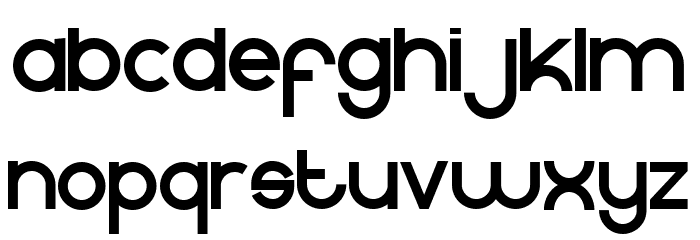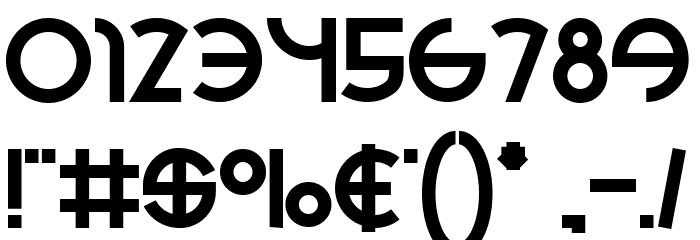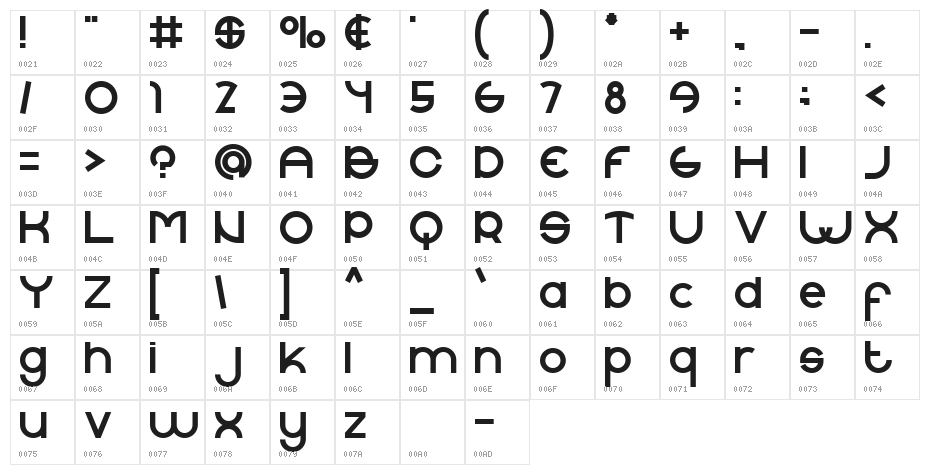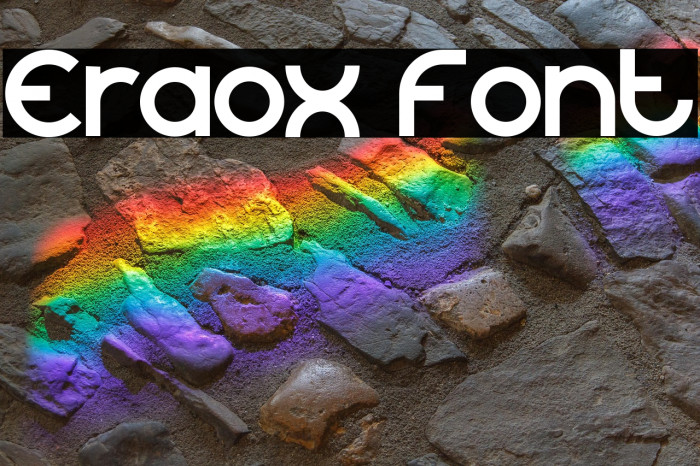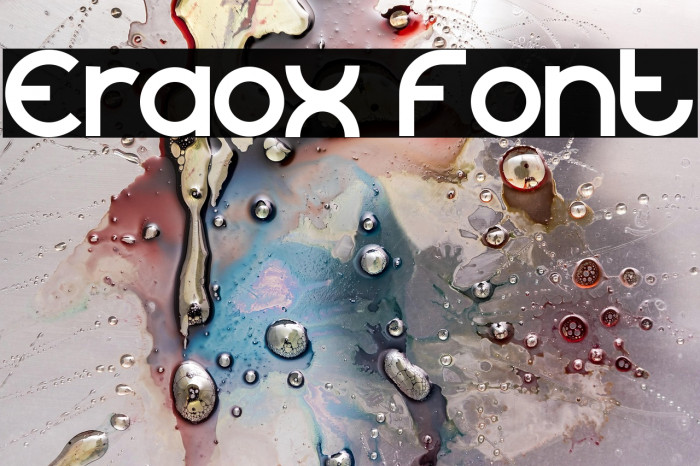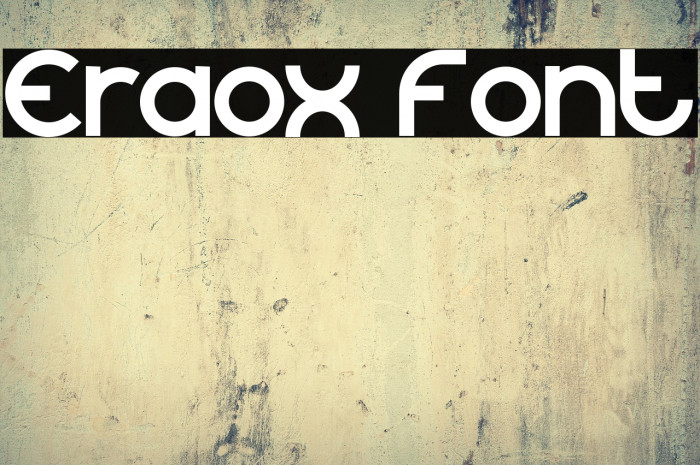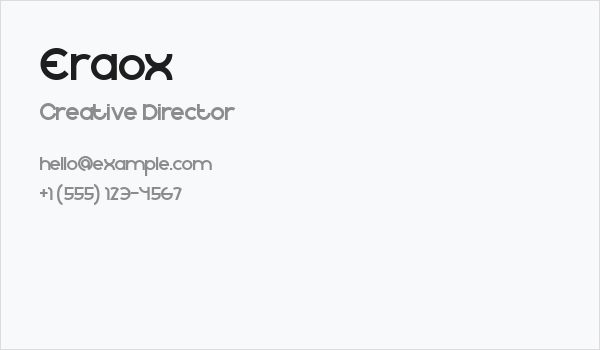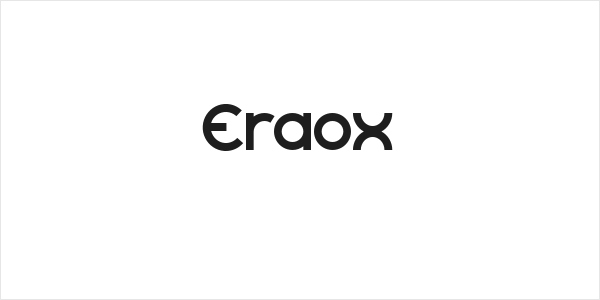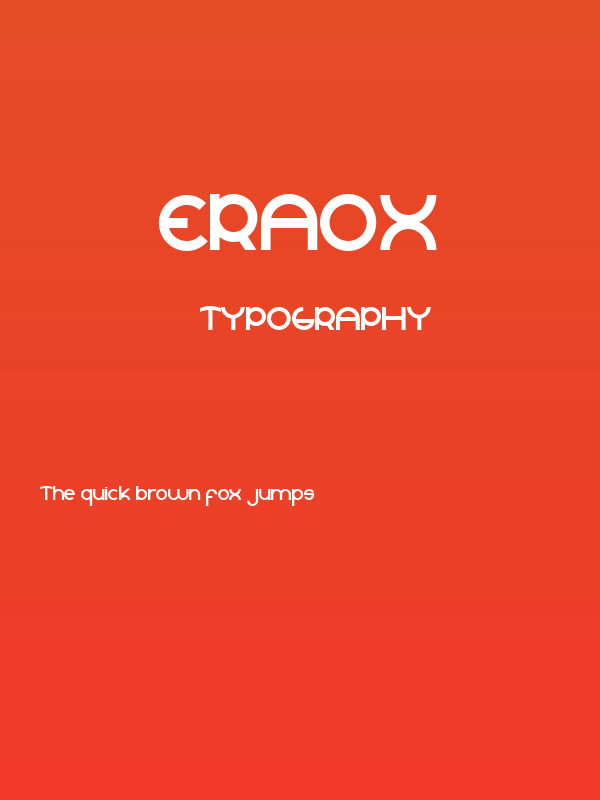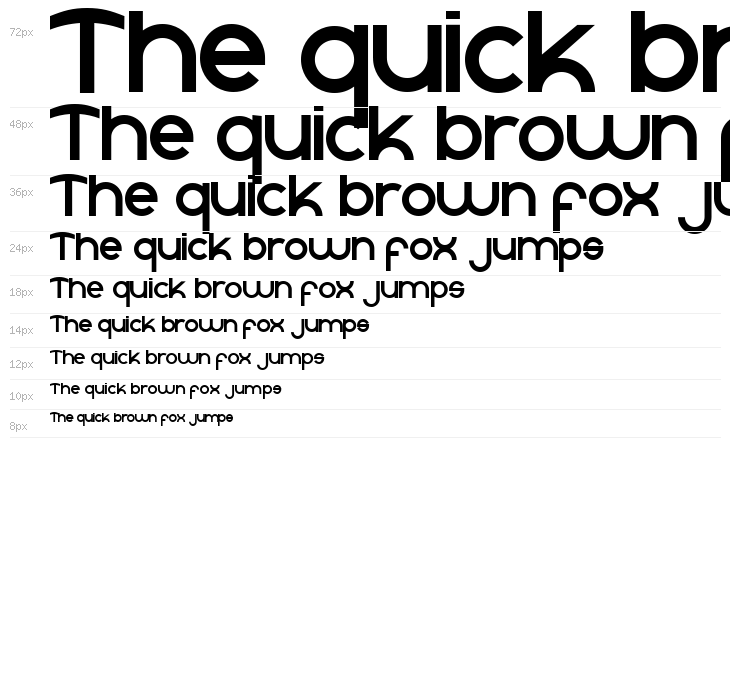
Eraox Font
This font features a modern and geometric style with a distinct futuristic flair. The characters are crafted with clean, bold lines and rounded edges, creating a harmonious balance between sharpness and softness. The uppercase letters exhibit a unique blend of straight and curved elements, while the lowercase letters maintain a consistent roundness, enhancing readability. The numerals and special characters follow the same design principles, ensuring uniformity across all glyphs. This font's design is both eye-catching and versatile, making it suitable for various creative applications.
A modern, geometric font with bold lines and rounded edges, perfect for futuristic designs.
- Proposed Projects: Ideal for branding, advertising, digital interfaces, and futuristic-themed projects.